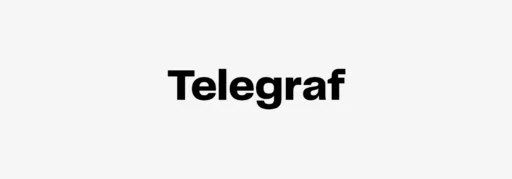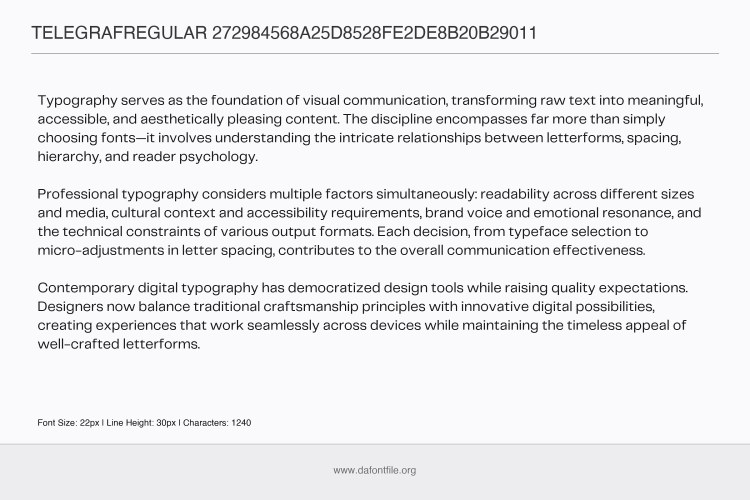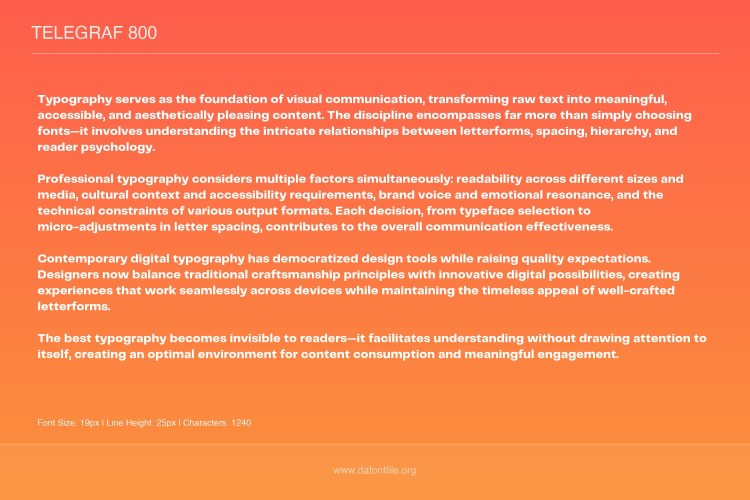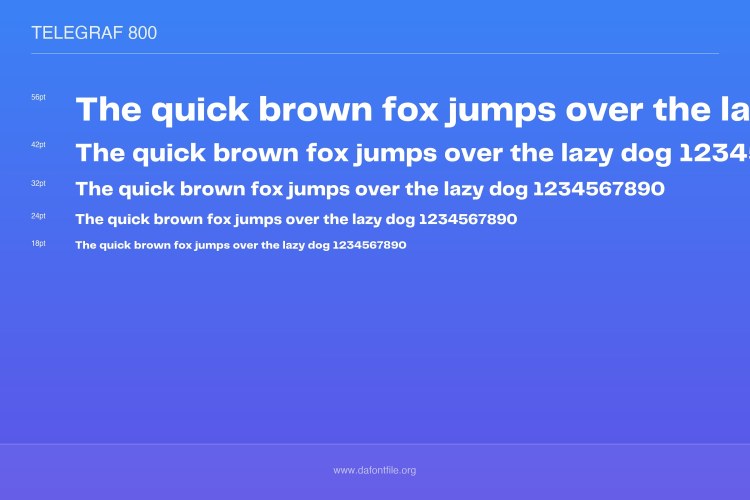
Telegraf Font Family
The Telegraf font is a modern geometric sans serif with a clean and structured design. Its balanced proportions and sharp details give it a contemporary and professional look. Perfect for branding, editorial layouts, and digital interfaces, it combines clarity with style. The font’s versatility makes it suitable for both bold headlines and minimal body text.
Where Telegraf Font Family works best
Telegraf Font Family stays legible at small sizes, which makes it a strong choice for navigation, buttons and dashboards in web design and app interfaces.
Clean sans serifs like Telegraf Font Family are the default language of SaaS, fintech and product branding.
What is Telegraf Font Family good for?
Telegraf Font Family is a Sans Serif Fonts typeface tagged Bold, Clean, Geometric, Minimalist. It works well for headlines, logos, posters, social media graphics and branding projects that need a distinctive sans serif fonts look.